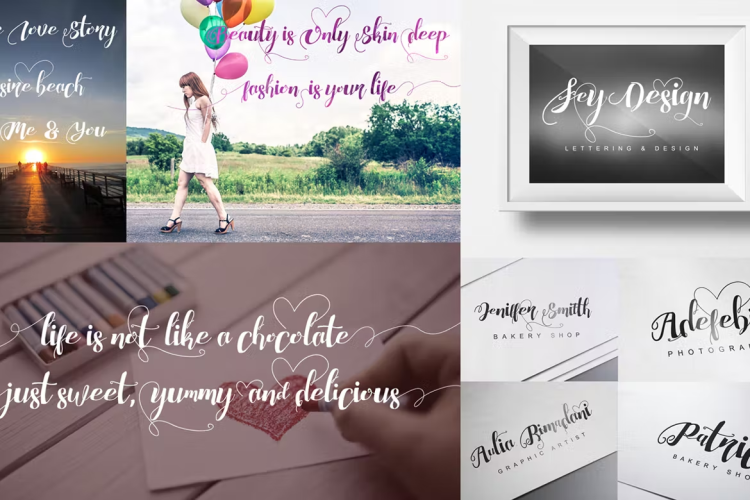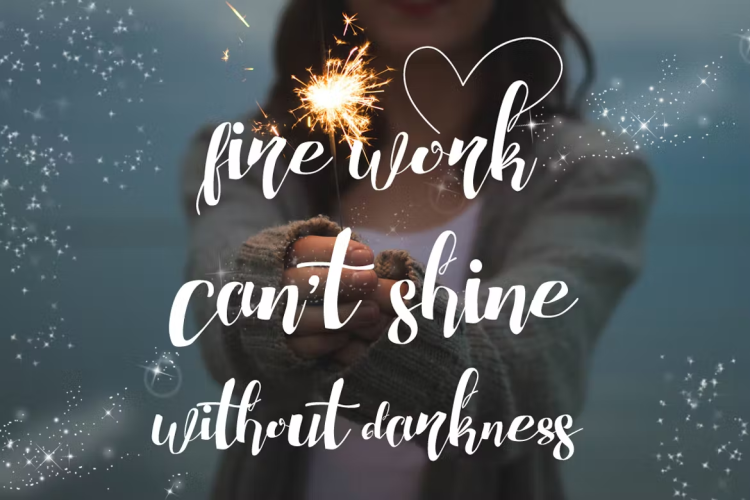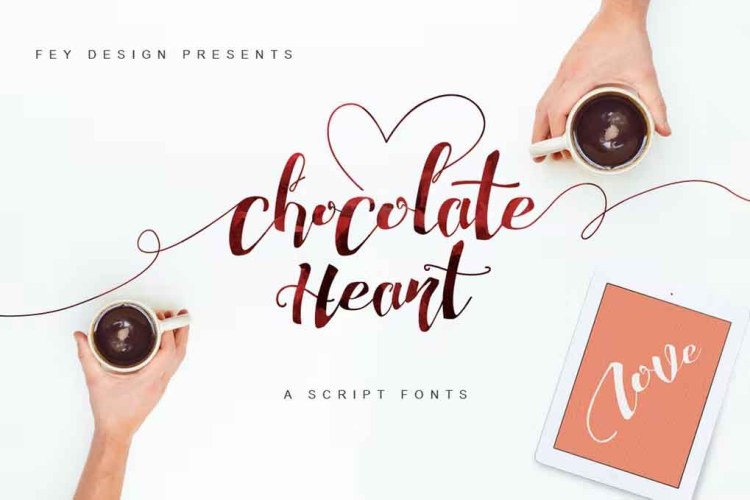
Chocolate Heart Font
Chocolate Heart Script Font
Suitable for design, element design, wedding, event, t-shirt, logo, badges, sticker, and awesome work, etc…
Where Chocolate Heart Font works best
A short phrase in Chocolate Heart Font carries warmth that a typeset sans cannot fake; keep the rest of the card plain.
Chalkboard-style headings in Chocolate Heart Font make a menu feel hand-made. Keep the dish descriptions in a simple face so prices stay readable.
One line of Chocolate Heart Font over a photo is enough; the script carries the tone and the caption does the work.
What kind of work does Chocolate Heart Font suit?
It sits in the Script And Handwritten group and reads as branding, calligraphy, modern, script. That makes it a candidate wherever those qualities help: headings, packaging, social graphics and brand work. Set it at the size you plan to use before deciding.